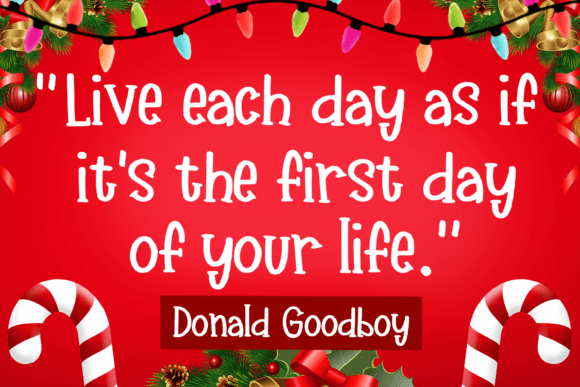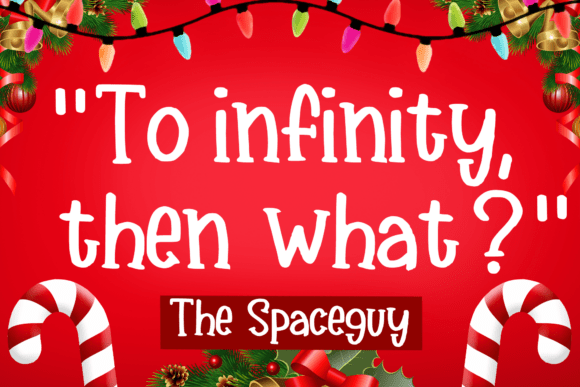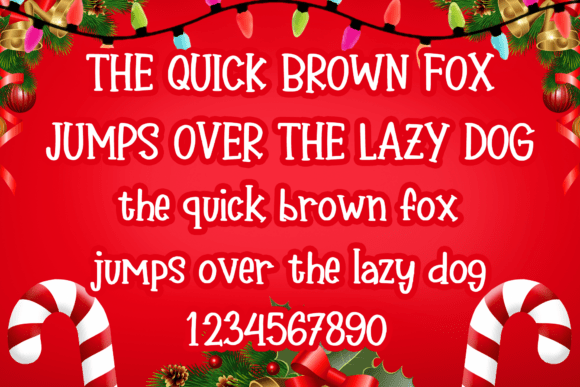
Introduction to Lighthearted Christmas Font
Infuse an air of festive joy into your design projects with the Lighthearted Christmas font.
This dazzling, handwritten font encapsulates the spirit of Christmas, instantly adding a touch of magic to a variety of creative endeavors Ideal for designing enchanting stickers, captivating logos, or unique t-shirt designs, its versatile charm ensures itโs a perfect fit for a range of purposes.
Key Features of Lighthearted Christmas Font
Why Choose Lighthearted Christmas Font?
Lighthearted Christmas Font offers exceptional quality and versatility, making it a valuable addition to your design toolkit. Whether you’re creating for personal projects or commercial use, Lighthearted Christmas Font delivers professional results.